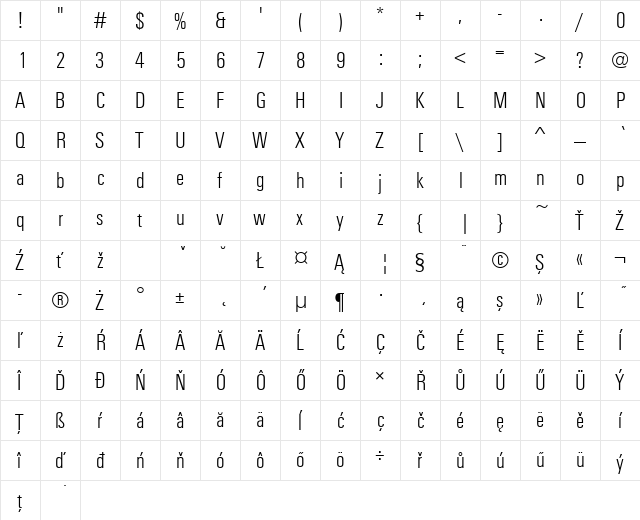
UnitusDEELigCon Regular
Design Context for UnitusDEELigCon Typeface
UnitusDEELigCon is a composed and adaptable typeface that performs quietly and consistently across a wide range of design contexts.
Pro Tip: Pair UnitusDEELigCon with a font of contrasting weight or personality to build a more expressive typographic hierarchy.